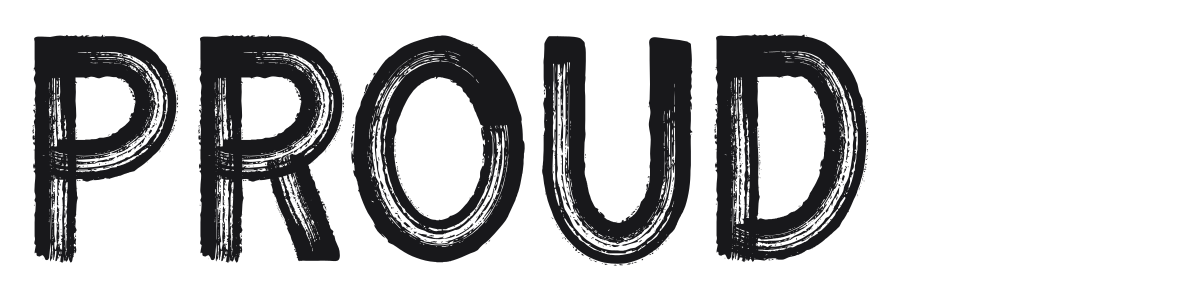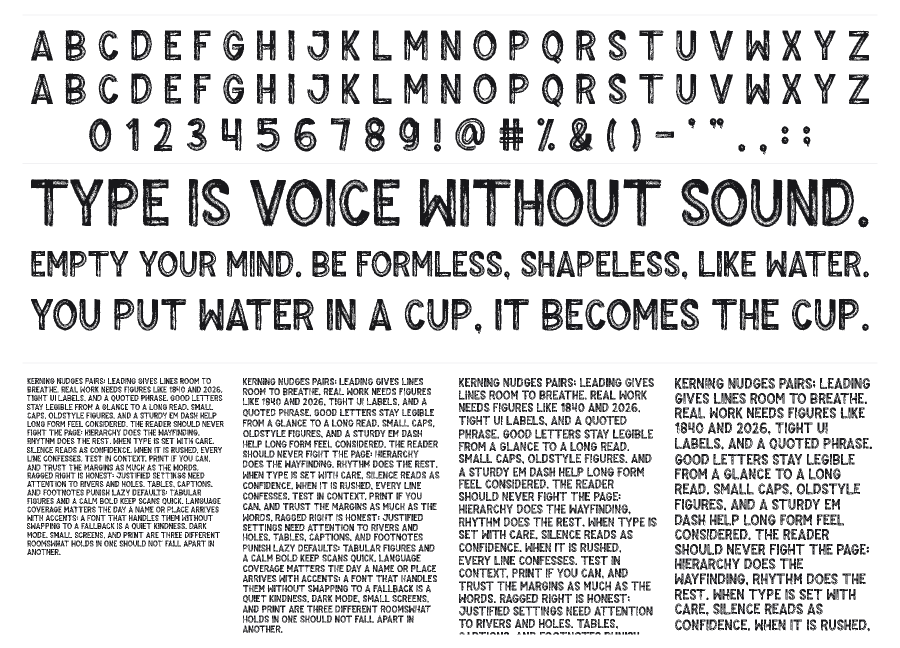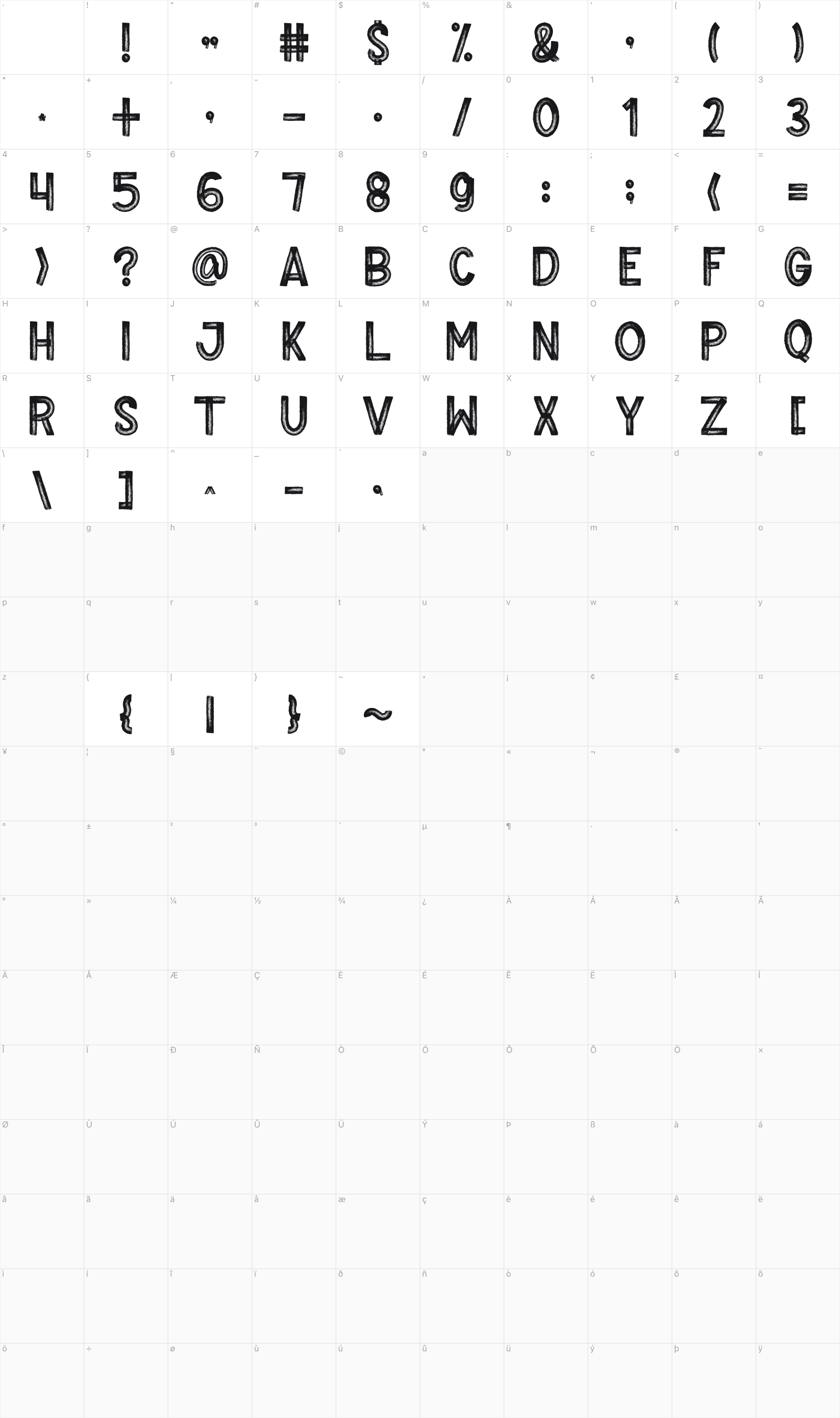
Proud
Proud is a bold condensed display font with a gritty, inked texture and an inline detail cut through each stroke. The distressed grain feels like a worn woodblock print or a screen-print that didn't fully flood. It brings a handmade, retro-carnival energy to posters, labels, and any headline that needs weight and character.